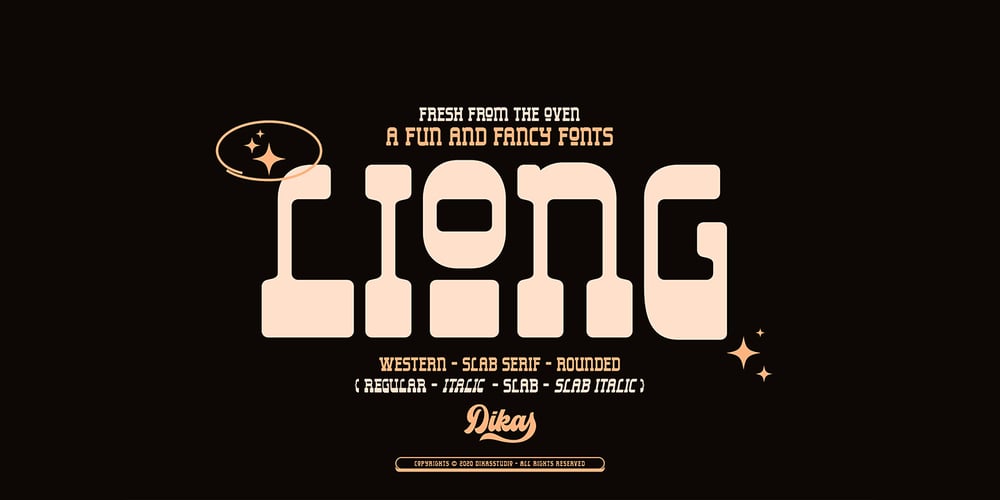
Liong
Liong font
Liong Font Family was designed by Andika Setiawan and published by Dikas Studio. Liong contains 3 styles and family package options. Liong is a bold & retro slab serif typeface inspired by western typography signane, they have a contrast weight bar and slab with fun and fancy character. Liong comes with 4 style regular, italic, slab & slabitalic, perfect for logos, badges, typography and any retro design needs.